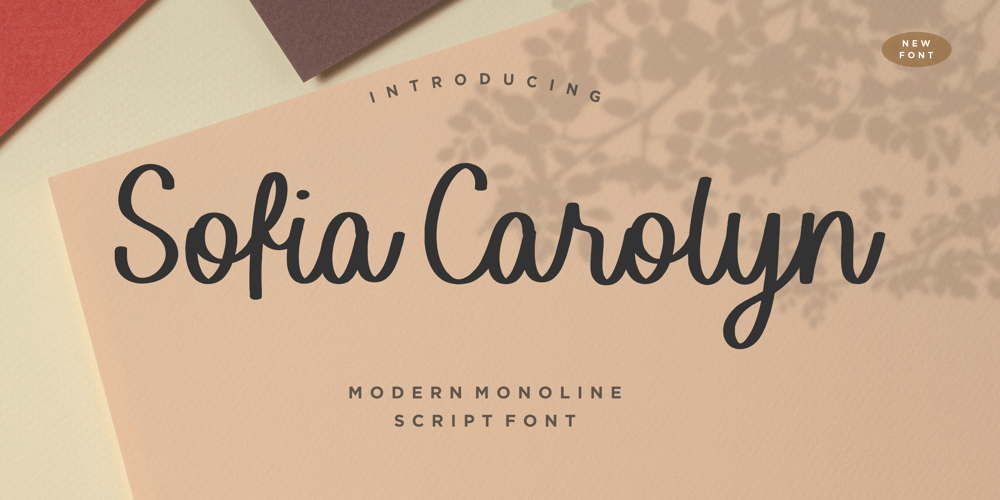
Sofia Carolyn
Sofia Carolyn font
Sofia Carolyn Font Family was designed by Restu Angga and published by Balpirick. Sofia Carolyn contains 1 styles and family package options. Sofia Carolyn is a Modern Monoline Script Font.Sofia Carolyn is a delicate, elegant and flowing handwritten font. It has beautiful and well balanced characters and as a result, it matches a wide pool of designs. Fall in love with its incredibly versatile style and use it to create spectacular designs!Sofia Carolyn also multilingual support.Enjoy the font, feel free to comment or feedback, send me PM or email.Thank you!